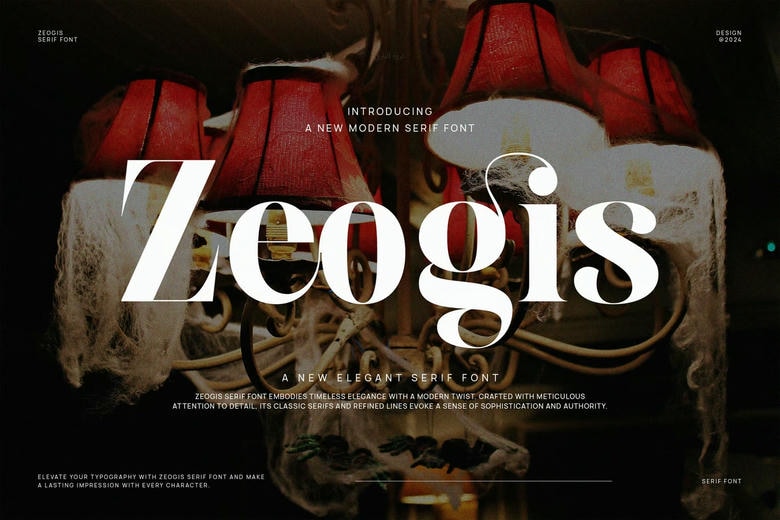
Zeogis Font
Zeogis is a modern serif font with an elegant style, Perfect for branding projects, Logo design, Clothing Branding, product packaging, magazine headers, or simply as a stylish text overlay to any background image.
Zeogis Serif Font